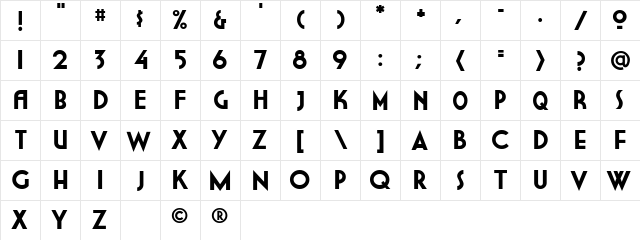
CCDutchCourage2 Dark
Design Context for CCDutchCourage2 Typeface
CCDutchCourage2 is a composed and adaptable typeface that performs quietly and consistently across a wide range of design contexts.